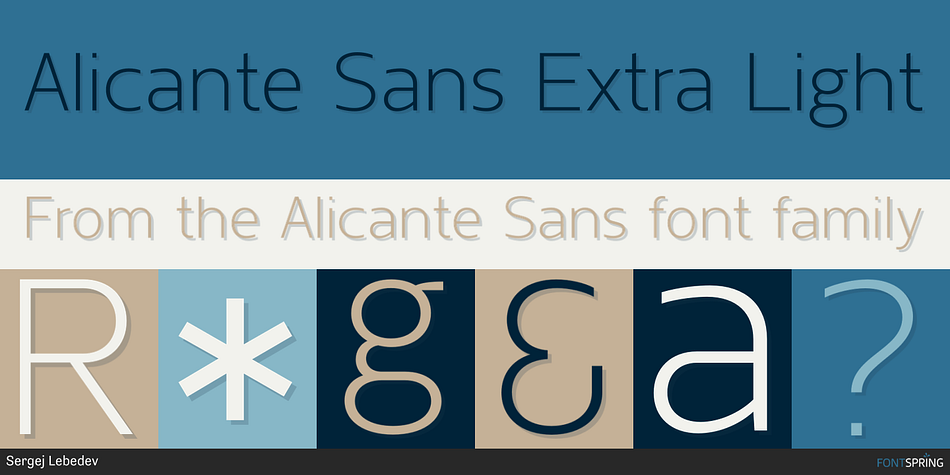
Alicante Sans Extra Light
Designed by Sergej Lebedev, Alicante Sans is a sans serif font family. This typeface has sixteen styles and was published by Sergej Lebedev.
Alicante Sans is a contemporary font family comprising eight weights (Thin, Extra Light, Light, Book, Regular, Medium, Bold, and Black) and italic versions for each format. Alicante Sans is named after the beautiful Alicante, a city and municipality in the Valencian Community, Spain.
Alicante Sans is an optimal font family for a multitude of applications, including text, corporate design, communication design, graphic design, branding, packaging, publishing, and web use. Each font contains an international set of 872 characters, supporting 212 different languages. Alicante Sans is not just a typeface; it’s a toolkit for creatives. With its multitude of OpenType features and stylistic alternatives, designers are equipped with an arsenal of typographic tools to add character and distinction to their work. Furthermore, the font family has a multitude of OpenType features. Alicante Sans will take your work to the next level, whether you’re creating branding, designing a website, or setting type for a publication.